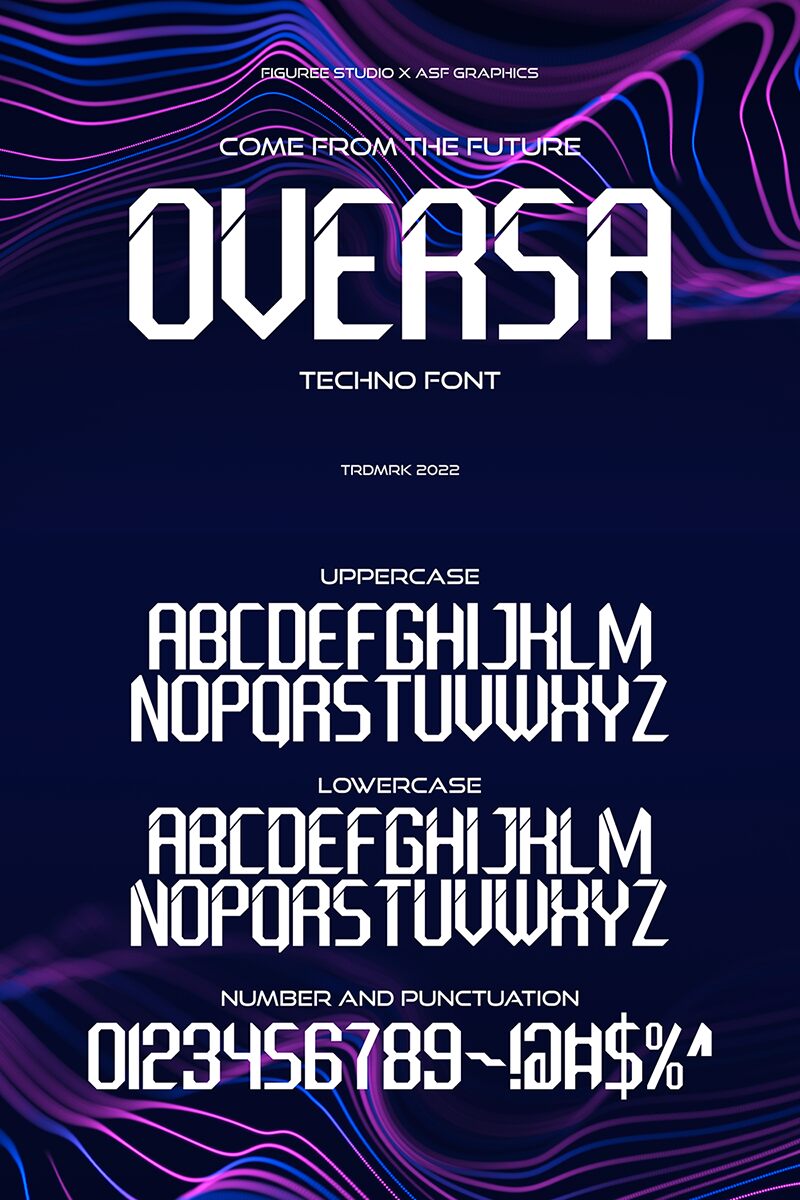
Oversa
Oversa font, a futuristic yet condensed typeface by Figuree Studio, revolves around geometric designs with curated angles that offer the unique visual element needed for creative projects. Its techno display style marked by thick, bold characters grants an awakening energy to simple texts and keeps audiences hooked on headlines.
A free techno display font at its core, Oversa can be featured in titles and logos, as well as movie posters and advertisements. Build packages for tech-related products or engage fans with apparel items by blending your brand name with stunning inscriptions!